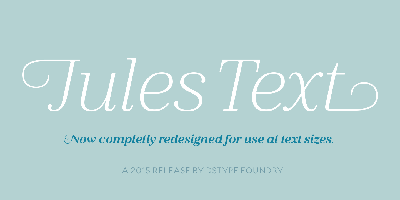
Text Font Free Download refers to a broad category of typefaces specifically designed for optimal readability in continuous blocks of text, making them indispensable for a wide array of publishing and digital applications. Imagine using a high-quality text font for crisp e-books, professional corporate reports, engaging magazine articles, or comprehensive long-form blog posts. These fonts are engineered for sustained reading comfort across various screen sizes and print formats, making them an excellent choice for academic journals, responsive website body text, and any project where clear, effortless reading is paramount.
What makes a good Text Font truly exciting is its foundational role in effective communication. Unlike display fonts that prioritize visual flair for headlines, text fonts prioritize legibility, subtle rhythm, and consistency to make thousands of words digestible and inviting. They feature meticulously balanced letterforms, precise spacing, and robust character sets that ensure text remains clear and comfortable even at small sizes or on diverse displays. A well-chosen text font subtly guides the reader's eye, becoming almost invisible as it facilitates the transfer of information. Designers appreciate their reliability and how they effortlessly create a professional and highly readable experience, making them a cornerstone for any serious design project.
The family of a good Text Font is typically comprehensive, offering an extensive range of weights and styles to ensure maximum versatility for complex typographic hierarchies. You can generally expect to find a full spectrum of weights, such as Light, Regular, Medium, SemiBold, and Bold, often accompanied by their corresponding italic versions. Many robust text families also include specialized weights like Thin, Black, or Heavy, along with features like small caps, old-style figures, and various numeral sets. This broad array allows for superb typographic control within your designs, enabling you to create dynamic and engaging visual compositions that maintain a consistent, high-quality aesthetic throughout, whether for headlines or the core body of your content.